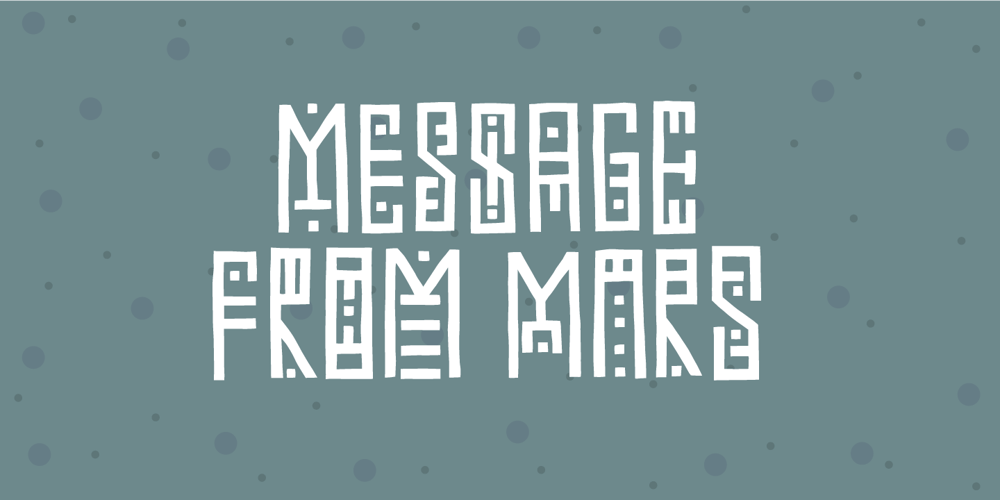
Message from Mars
Message from Mars font
Message from Mars Font Family was designed by Jakob Fischer and published by PizzaDude.dk. Message from Mars contains 2 styles and family package options. This is a live recording from Mars: Your planetary system is about to be invaded by the inhabitants of Mars. We come in peace, we come with party! Heh-heh.Say hello to my interplanetary font, Message from Mars. Handmade, yet super digital. Play around with the weird shaped letters, and make your own galactic text – use upper- and lowercase as well as the alternate version